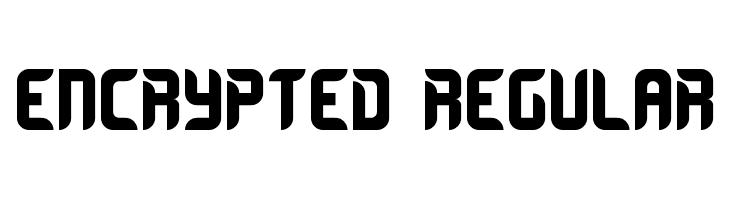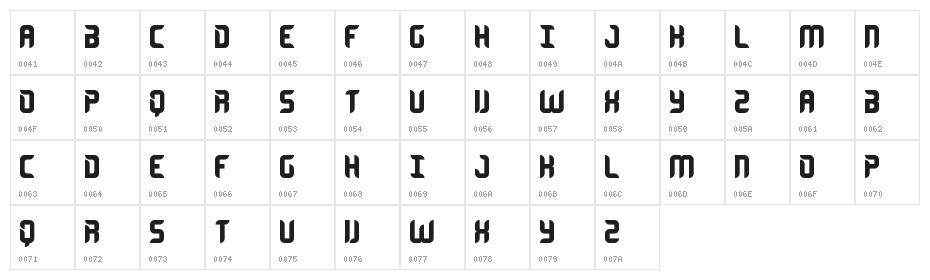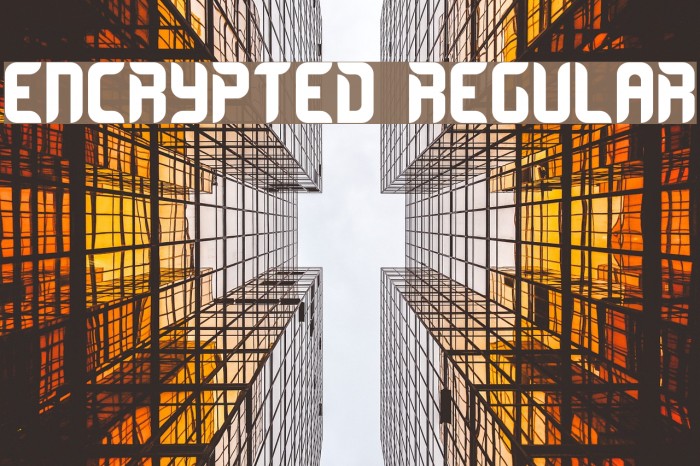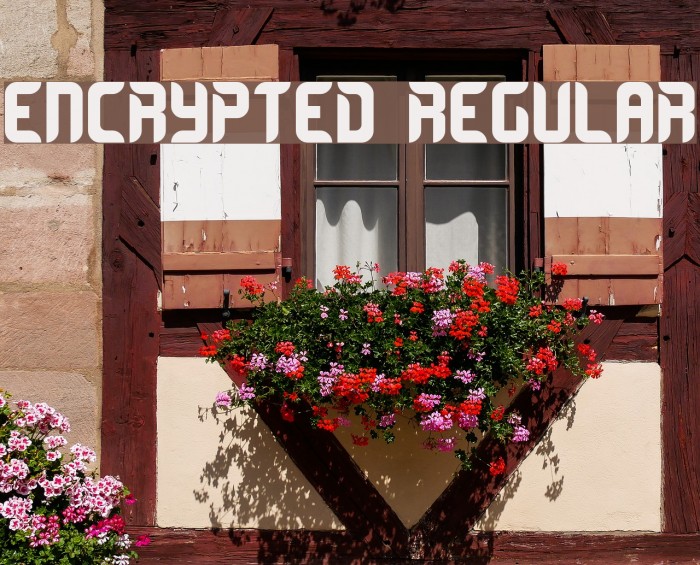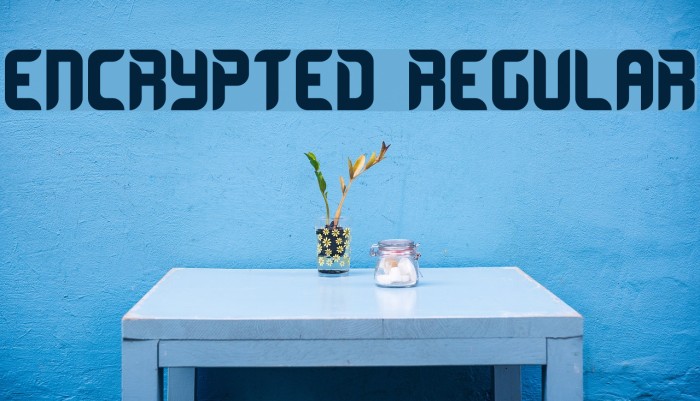
Encrypted Regular Font
Encrypted Regular Description
This font features a bold and futuristic design with geometric shapes and a blocky appearance. The characters are uniformly thick, giving it a strong presence. The uppercase letters have a distinct angular style, while the lowercase letters maintain a consistent structure. The numbers and special characters follow the same design principles, ensuring a cohesive look across all glyphs. This font's unique style makes it stand out, ideal for projects that require a modern and tech-inspired aesthetic.
| Proposed Projects | Ideal for technology branding, video game titles, sci-fi posters, and digital interfaces. |